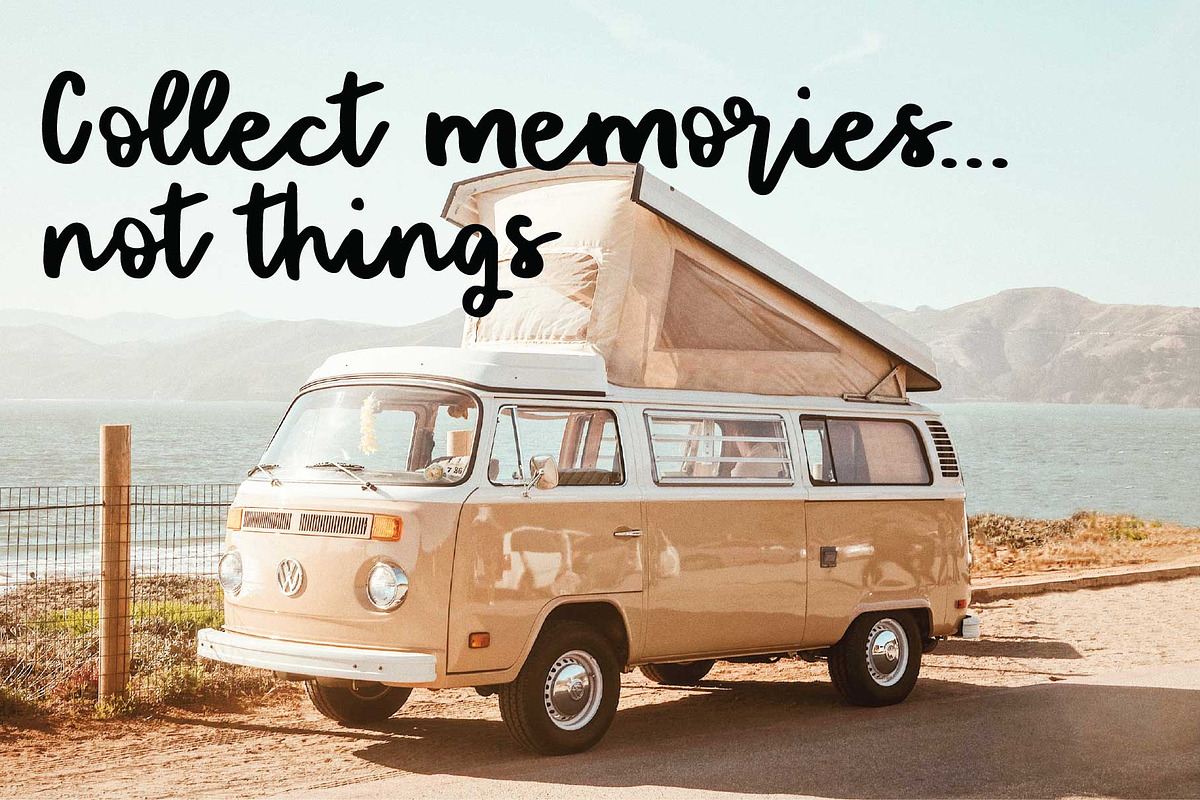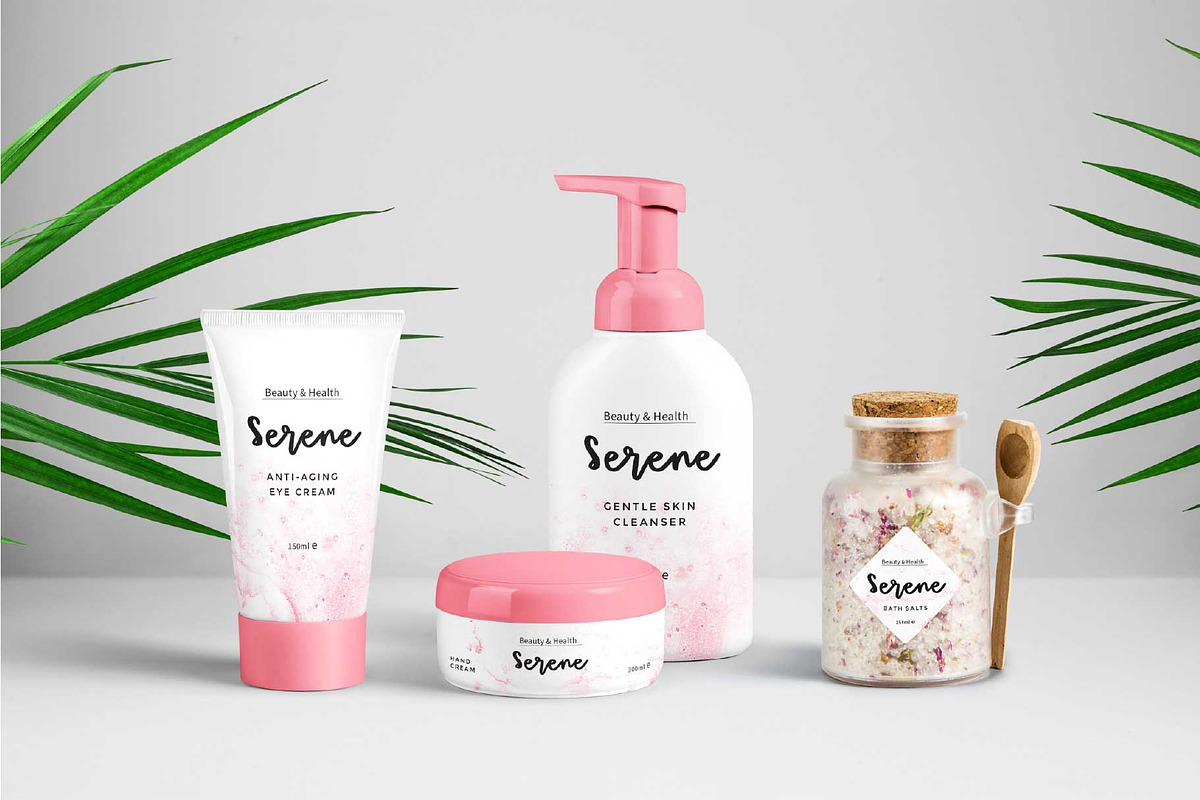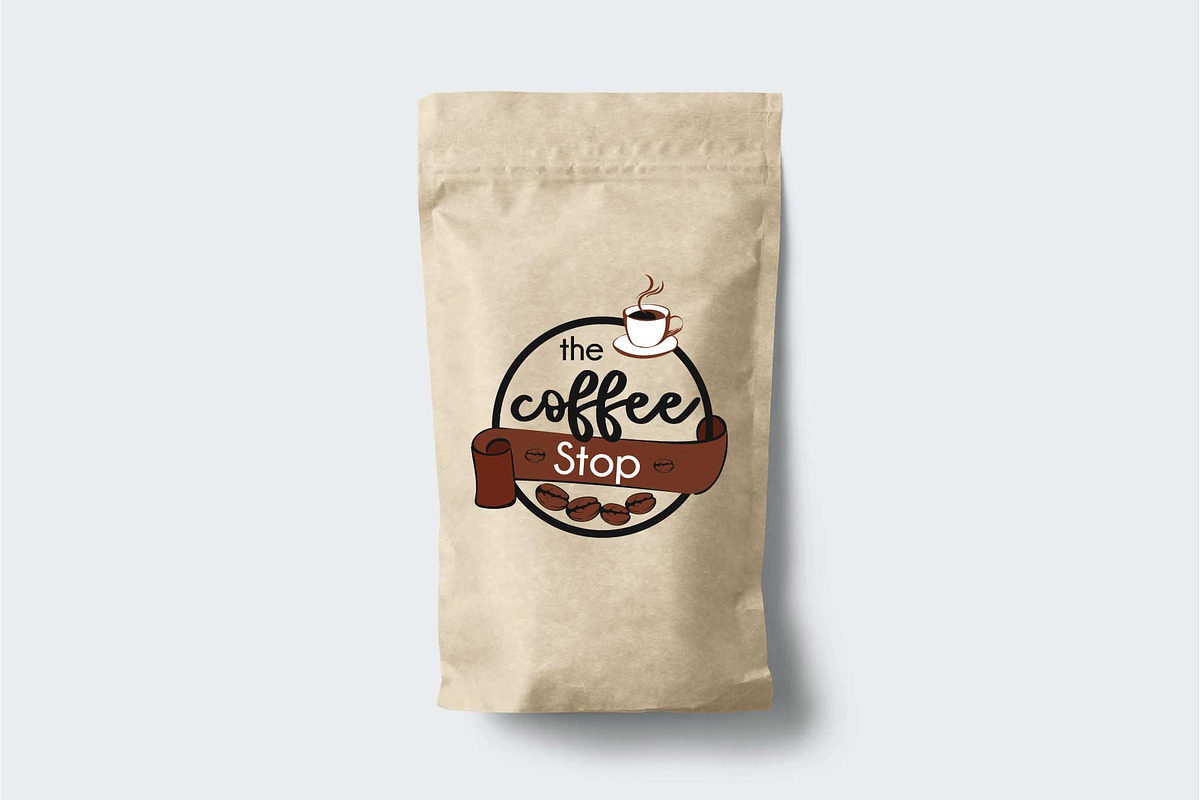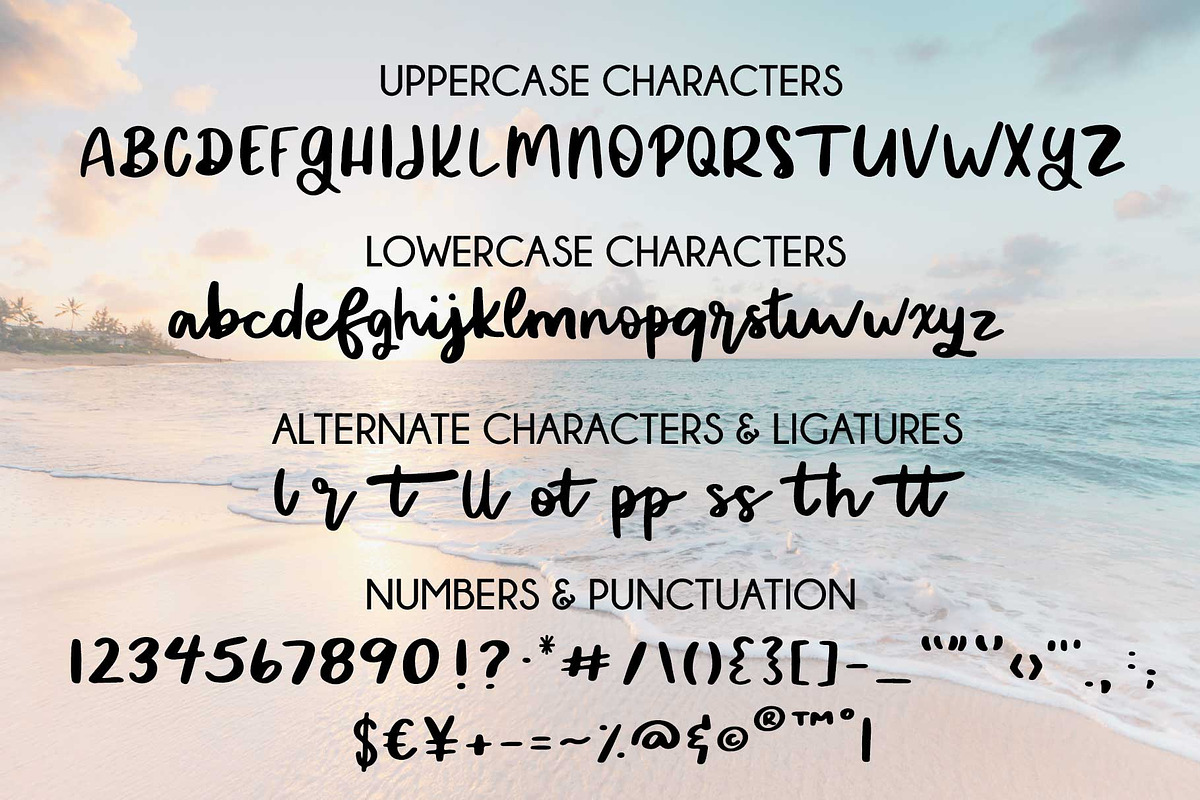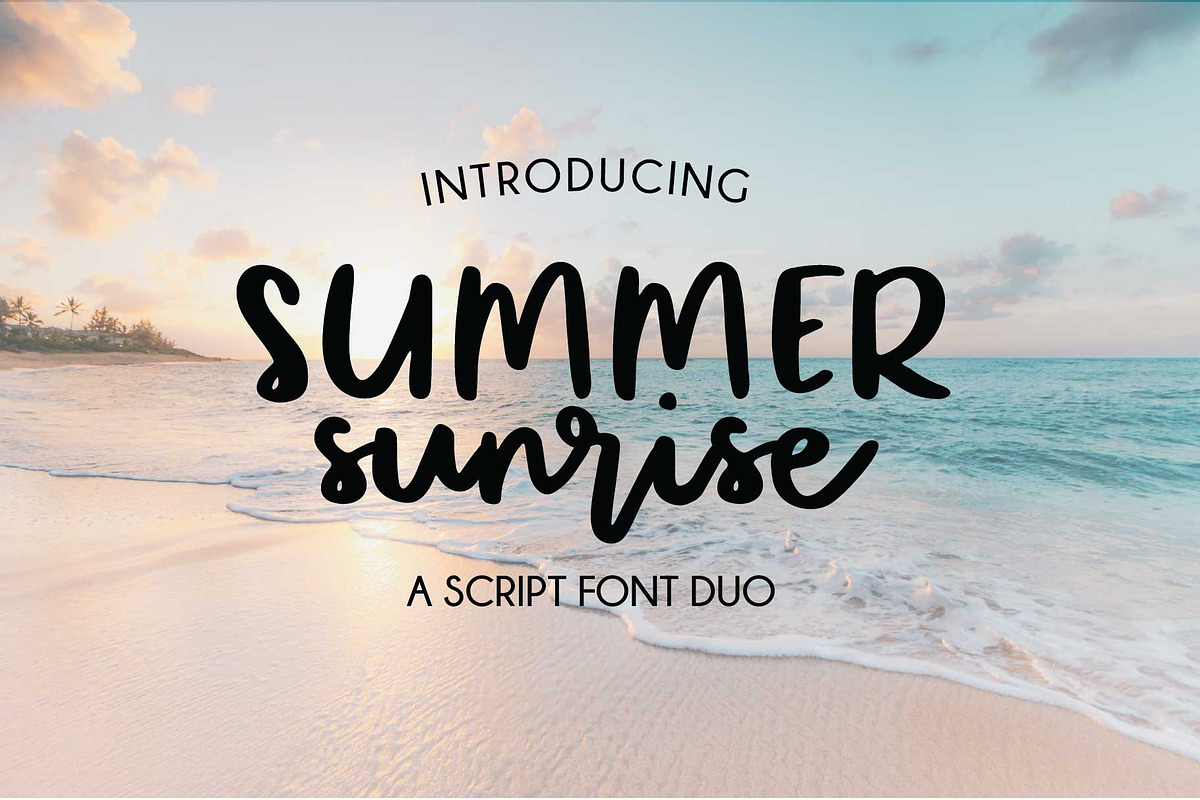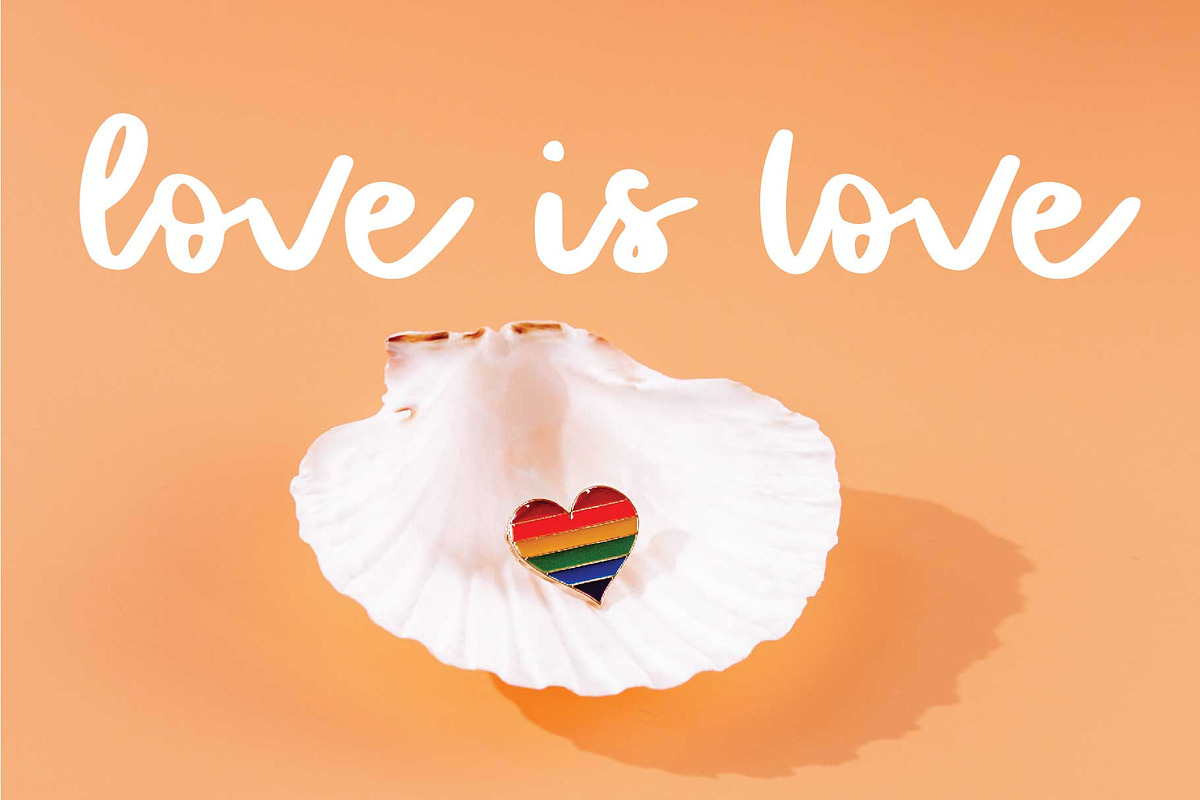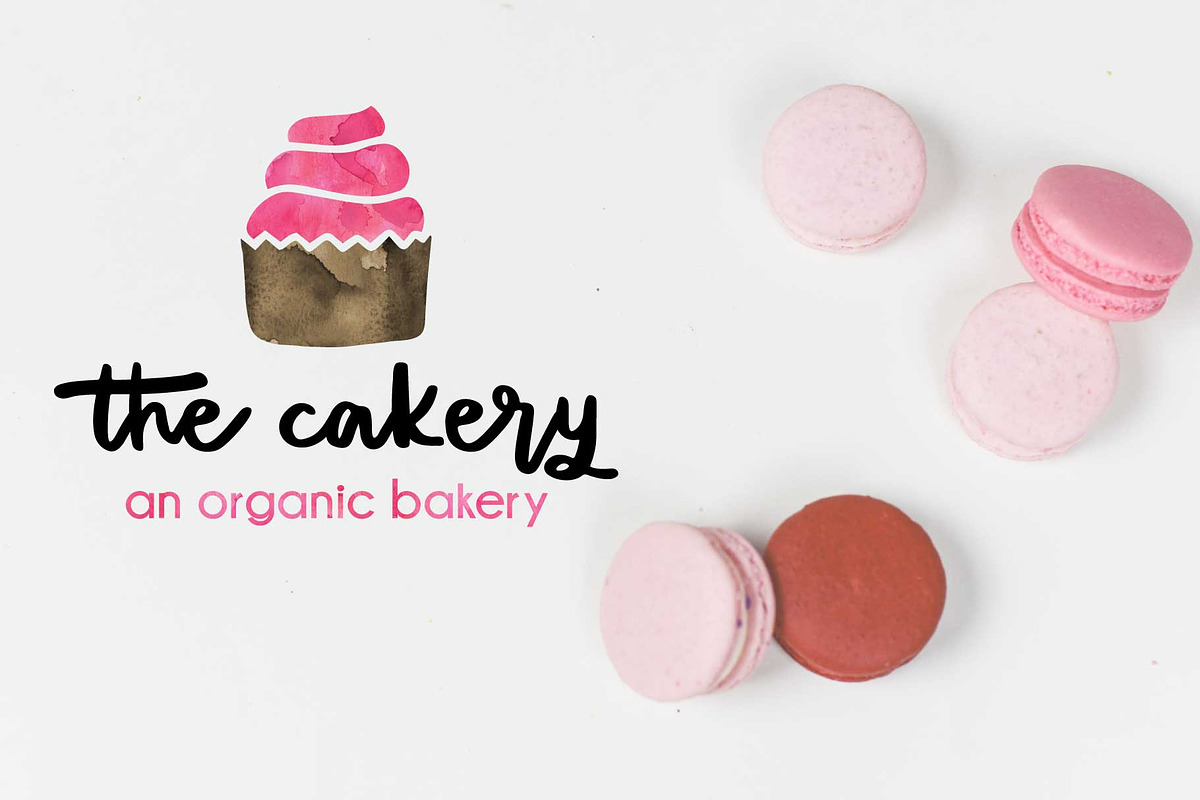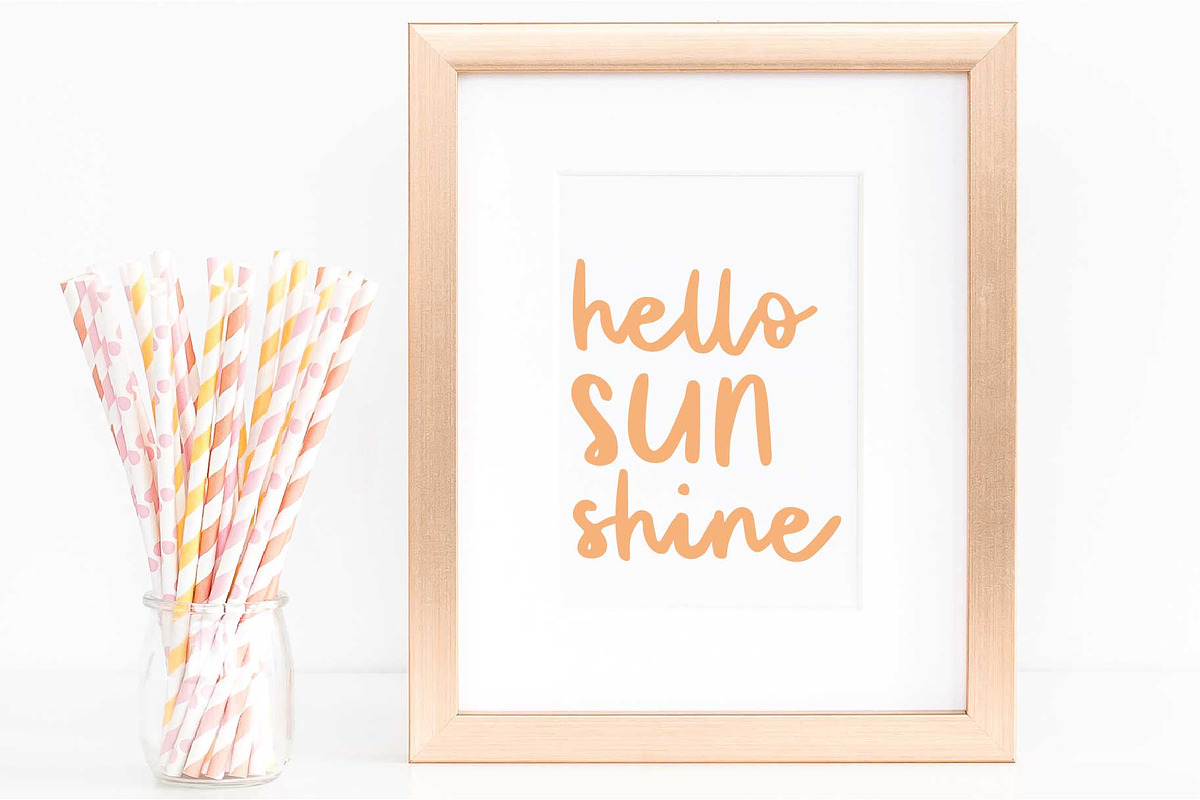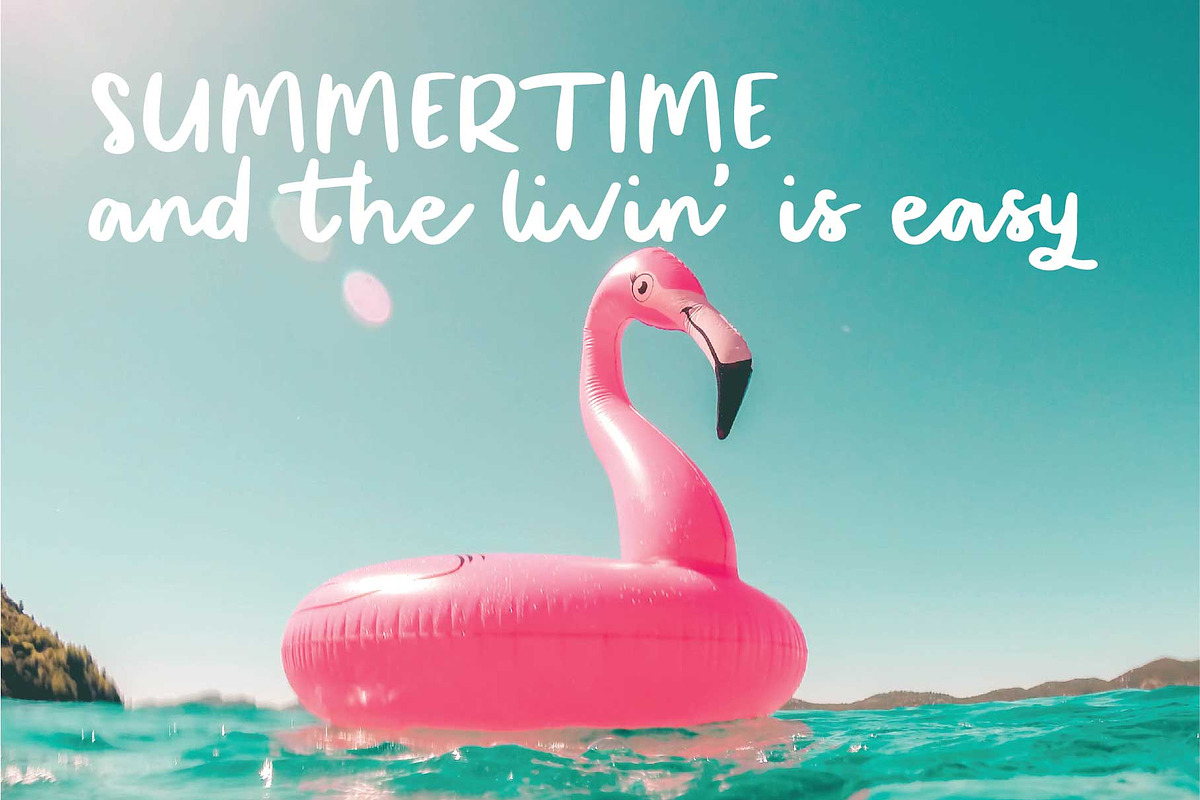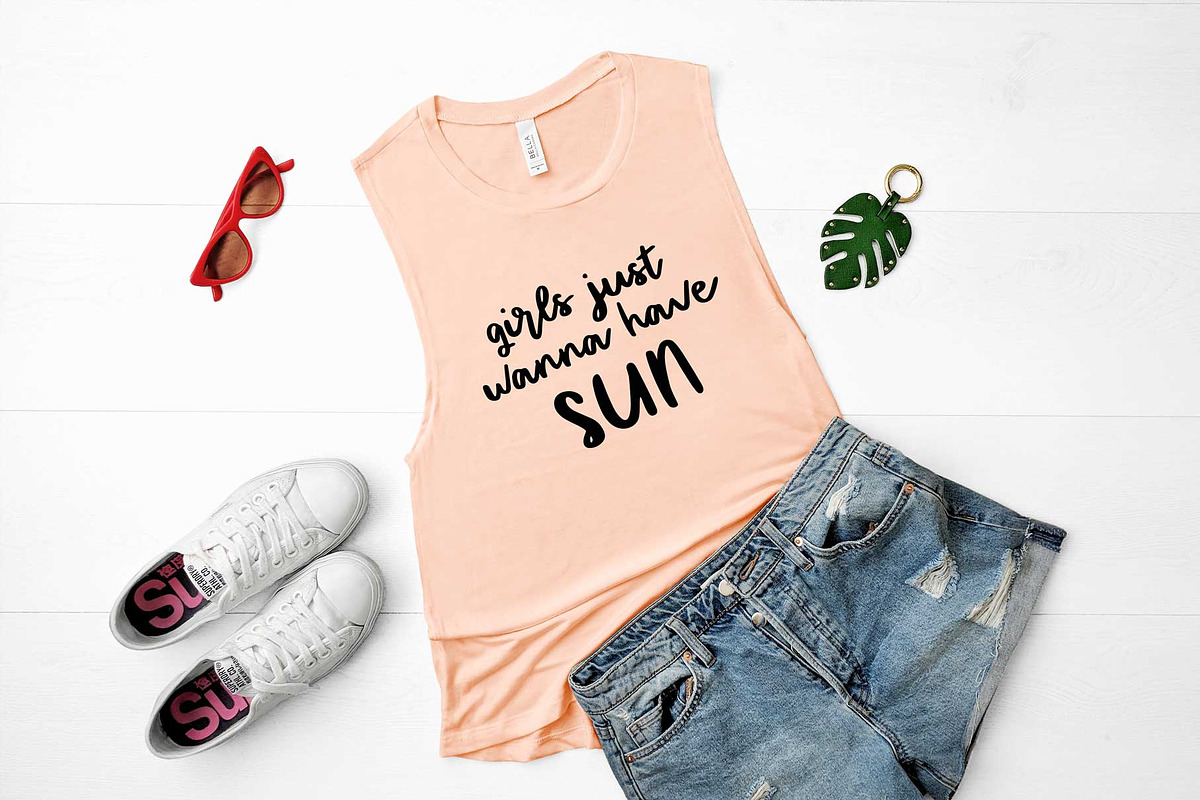
Summer Sunrise Font
Summer Sunrise is a fun hand-lettered script font duo. Its casual style makes it perfect for logos, branding, greeting cards, home decor, SVG files, blog headers, and more.
This font contains 3 alternate characters and 6 ligatures, allowing you to fully customize your designs. It is PUA encoded, making it perfect for crafting with Silhouette, Cricut, or other personal cutting machines. You can see all alternates and ligatures in addition to example text using the alternates and ligatures in the images above.